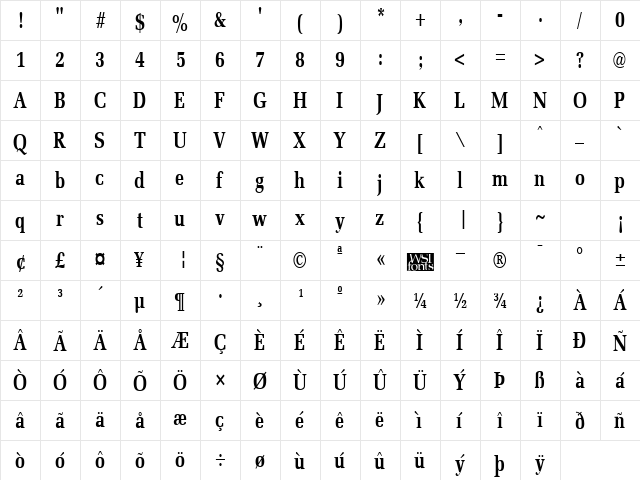
MemoirCondensed Bold
Design Context for MemoirCondensed Typeface
MemoirCondensed is a composed and adaptable typeface that performs quietly and consistently across a wide range of design contexts. The heavy weight commands attention and anchors typographic hierarchies. The condensed width makes it efficient for tight spaces without sacrificing legibility.